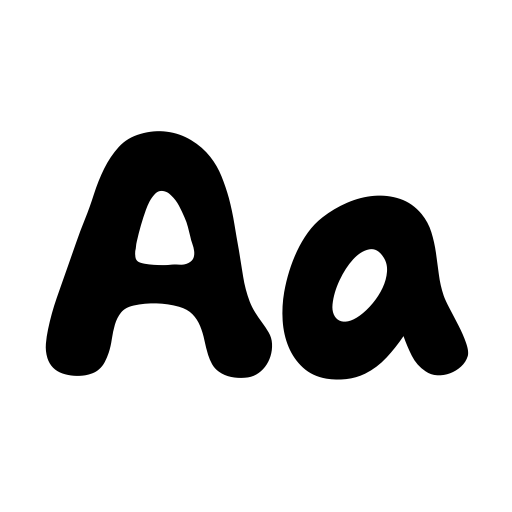
Bernie Font is a bold, chunky sans serif typeface with a playful and modern vibe. Its heavy weight, wide proportions, and simple round shapes give it a friendly, approachable personality that works well for headlines, branding, and display use where impact and readability are key. This font is ideal for designs needing a strong, confident look with a touch of fun, such as logos, posters, and packaging.
Bernie Font